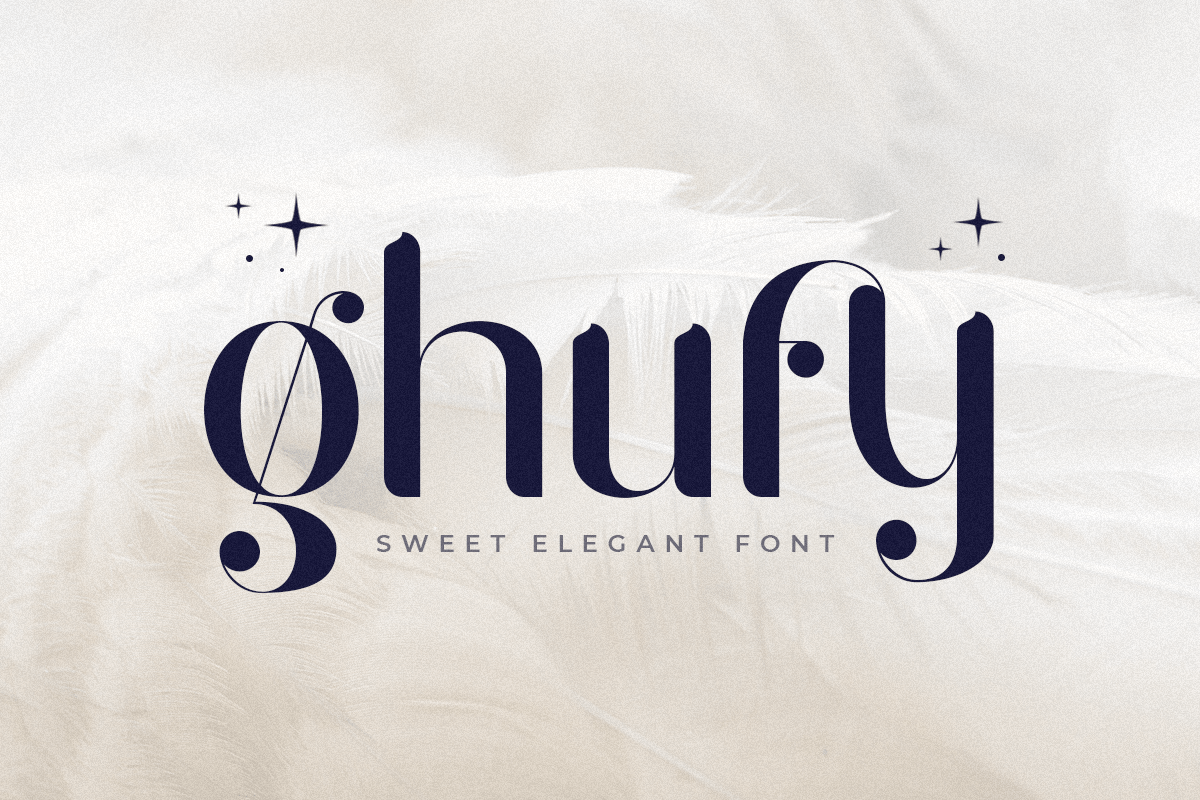
Ghufy
-Sweet Elegant Serif Font
Ghufy
Ghufy is A Sweet Elegant Serif font perfect for unique beauty project and Another Design needs
A New font that we created special for Unique branding needs, with unique style that ready to add value of your brand. It’s so nice to leverage designer or product owner that need solutions to make their design look more unique, sweet and elegant.